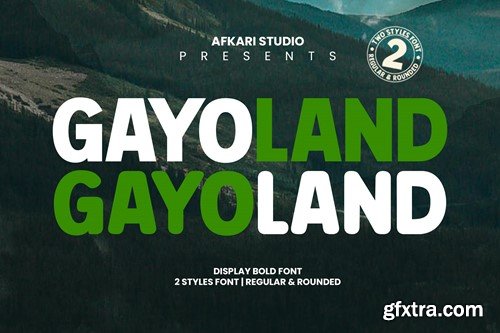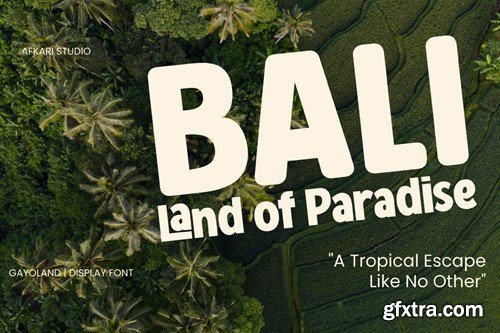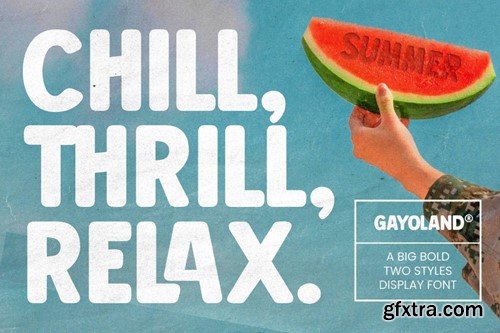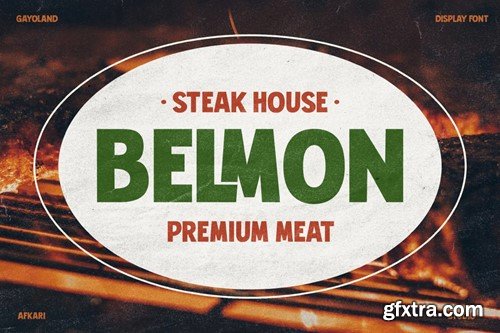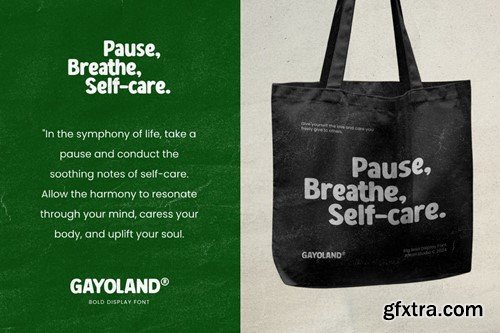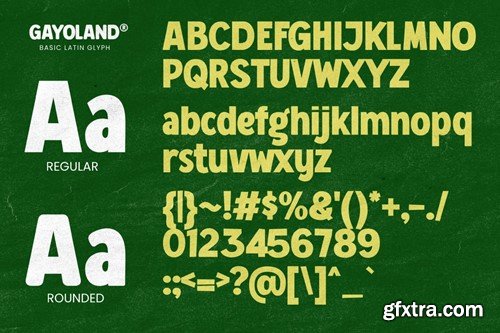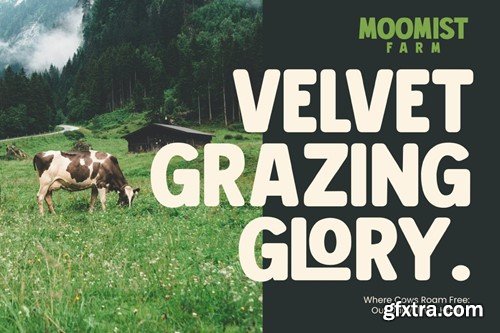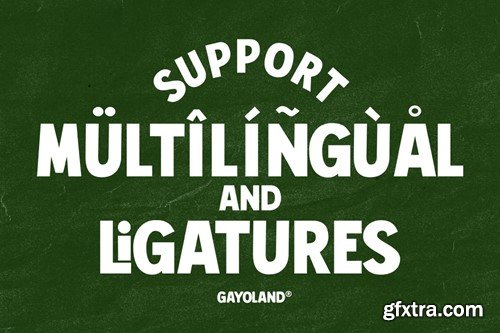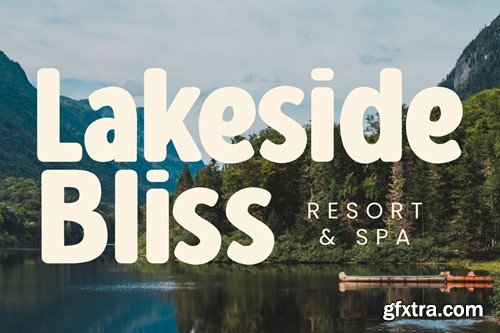
盖亚-朗德 - 显示字体 43WK8TE
Introducing Gayo Land Display Bold Font – a typographic masterpiece designed to elevate your creative projects with a bold, retro-inspired flair. This distinctive typeface is meticulously crafted to make a statement, combining the classic charm of a sans-serif font with a bold weight that demands attention. Embodying a perfect blend of contemporary aesthetics and vintage vibes, Gayo Land exudes a sense of nostalgia while remaining versatile enough for a myriad of applications. The bold strokes of each letter exude confidence, making it an ideal choice for eye-catching headings, titles, and logos that demand prominence. With its bold and impactful design, Gayo Land adds a touch of personality to any design project, ensuring that your message is not only seen but remembered. Whether you're working on a website, poster, branding, or any creative endeavor, this font is the go-to choice for those seeking a captivating and memorable visual presence. Let Gayo Land Sans Serif Display Bold Font transport you to a bygone era while seamlessly integrating into the modern design landscape. Elevate your typography game and infuse your projects with a timeless and stylish touch using this versatile and bold font. Highlighted Features: Hope you enjoy our font and this font is a useful font for your projects!